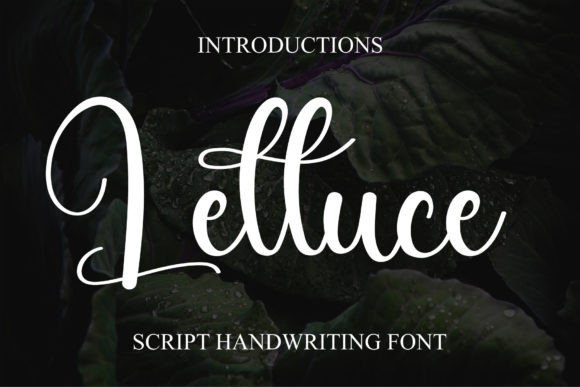
Adorn your designs with the enchanting Lettuce Font, a remarkable addition to our curated collection. This meticulously crafted script font, conjured by the skilled hands of YanStudio, is a fusion of elegance and charm, injecting life into your creative endeavors.
Immerse yourself in the graceful strokes of Lettuce, where each letter dances upon the page, intertwining seamlessly to form captivating words that evoke emotion and leave a lasting impression. Its timeless style transcends trends, ensuring that your designs remain captivating for years to come.
Unleash your creativity with Lettuce's versatility, adapting effortlessly to a myriad of projects. Whether you seek to craft a modern logo that exudes sophistication, design enchanting invitations that capture hearts, or produce awe-inspiring social media graphics that demand attention, Lettuce is your steadfast companion.
With Lettuce, you'll discover a world of possibilities. Its delicate strokes lend an air of refinement to wedding invitations, imbuing them with a touch of romance and elegance. Its flowing lines weave enchanting stories in book covers, drawing readers into realms of imagination. Unleash your inner artist and let Lettuce transform ordinary designs into extraordinary masterpieces.
But Lettuce is more than just a collection of letters; it's an experience. It's the embodiment of creativity and self-expression, empowering you to manifest your unique vision into tangible form. As your fingers glide across the keyboard, Lettuce dances alongside you, transforming your ideas into visual poetry.
Don't settle for ordinary fonts that fade into oblivion. Embrace the extraordinary with Lettuce, the font that ignites passion and sets your designs ablaze. As you delve into the world of Lettuce, you'll unearth a treasure trove of glyphs and swashes, effortlessly accessible thanks to its PUA encoding. Unleash your imagination and explore the limitless possibilities that await.